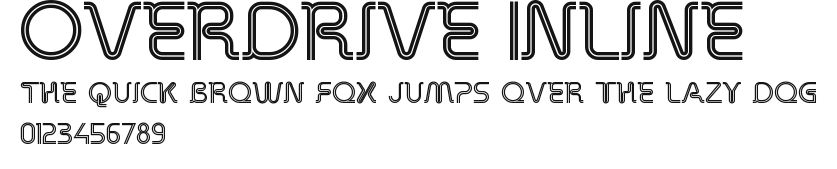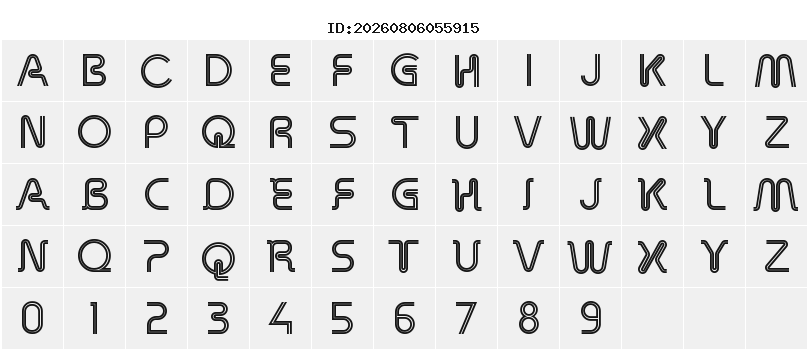
• Font Name: Overdrive Inline
• Full Font Name: Overdrive Inline
• Designer: Baranski Letragraphics, Inc.
About Overdrive Inline.ttf
Overdrive Inline.ttf is a modern, elegant sans-serif font designed for ultimate readability and visual harmony. Perfect for branding, headlines, web design, and print materials.